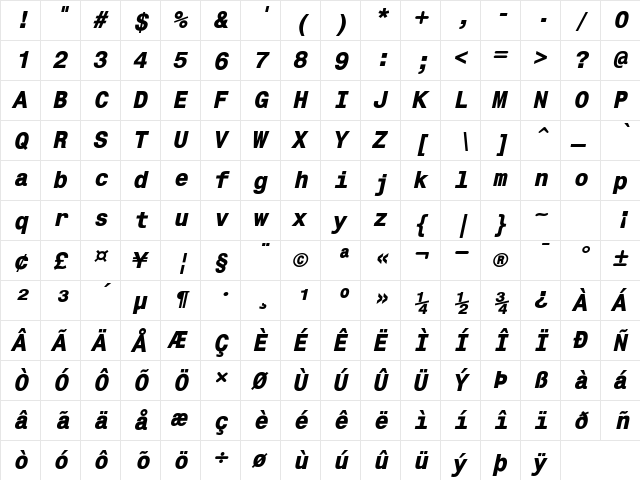
CorporateMonoExtraBold Oblique
Design Context for CorporateMonoExtraBold Typeface
CorporateMonoExtraBold uses fixed-width spacing throughout, giving it the structured, systematic character associated with coding environments and technical documentation. Its italic angle brings a sense of urgency and motion to the letterforms. The heavy weight commands attention and anchors typographic hierarchies.
A natural fit for code editors, technical documentation, developer-focused branding, and terminal-inspired UI.
Pro Tip: Pair CorporateMonoExtraBold with a proportional sans for UI contexts where code-style labels and regular body copy need to coexist.